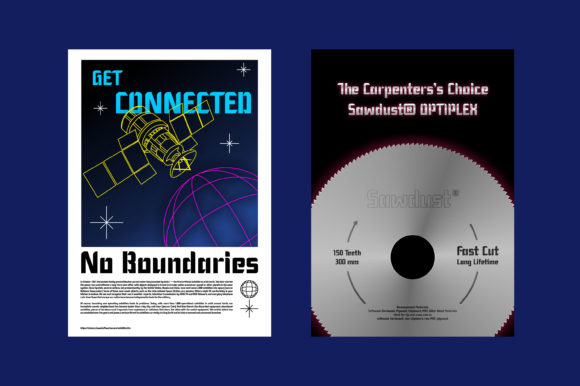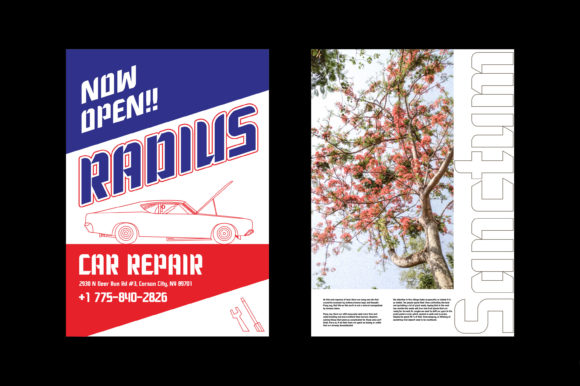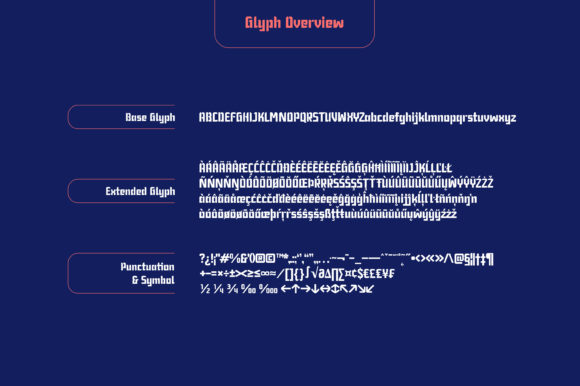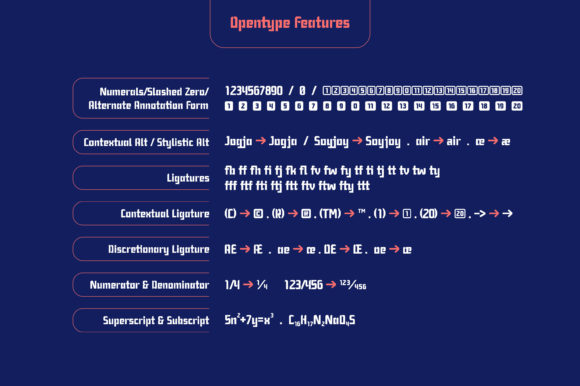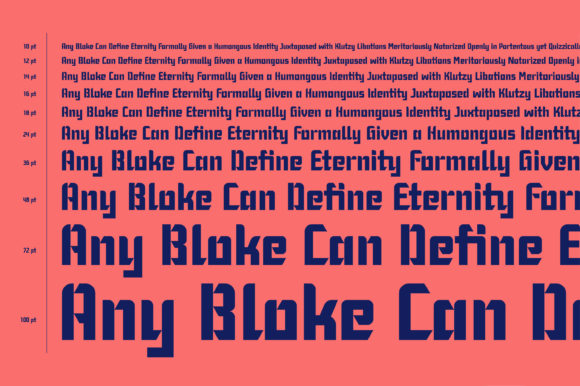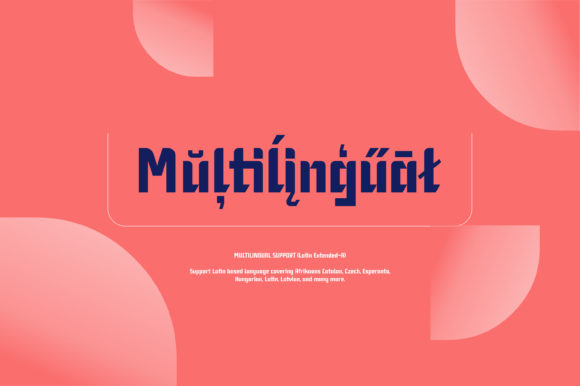
Introduction to Mawoot Font
Mawoot is a geometric display font.
This design has a strong technological feel and modern playful shapes, it will suit any project you can think of .